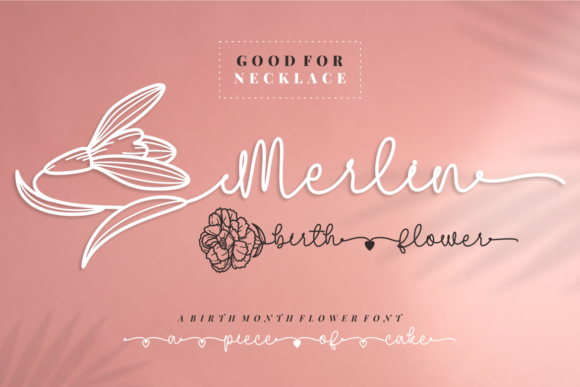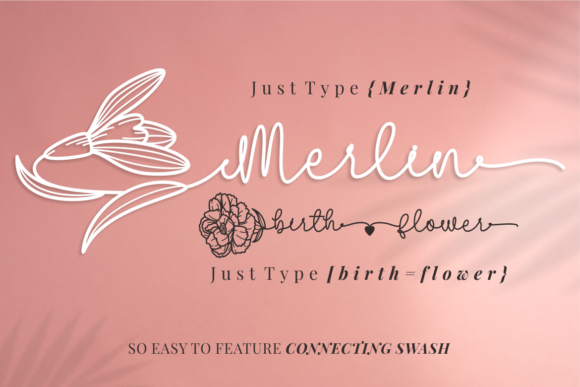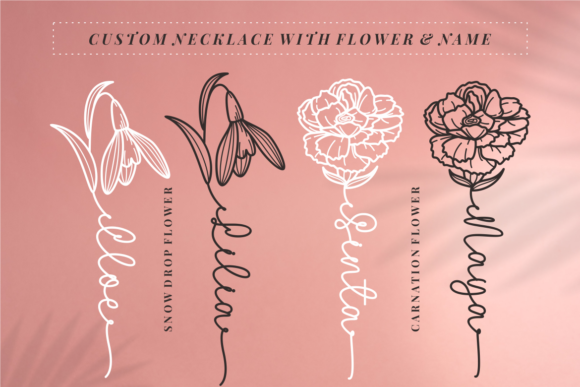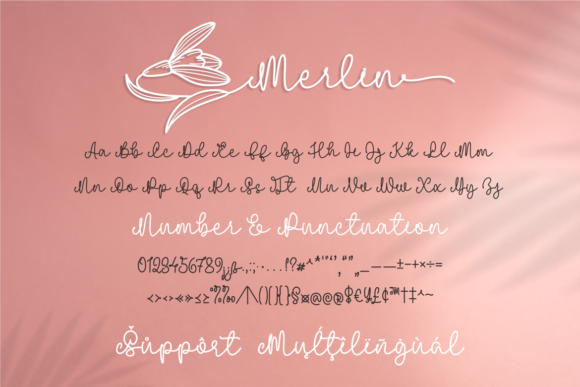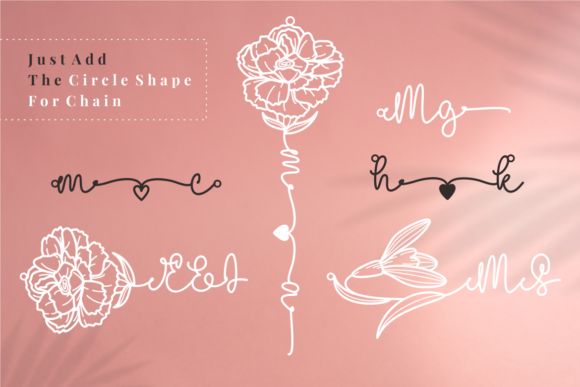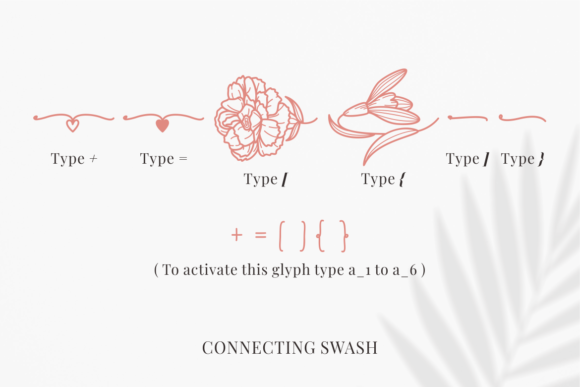
Merlin Birth Flower Font
About Merlin Birth Flower Font
Merlin Birth Flower is a magical script font carefully created with a touch of elegance. Whether you’re looking for fonts for Instagram or calligraphy scripts for DIY projects, this font will turn any creative idea into a true piece of art!